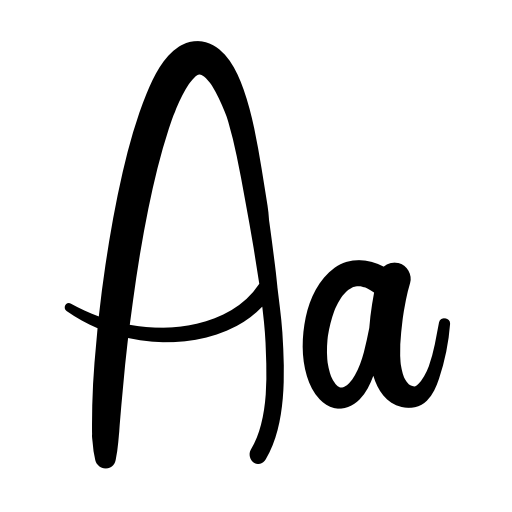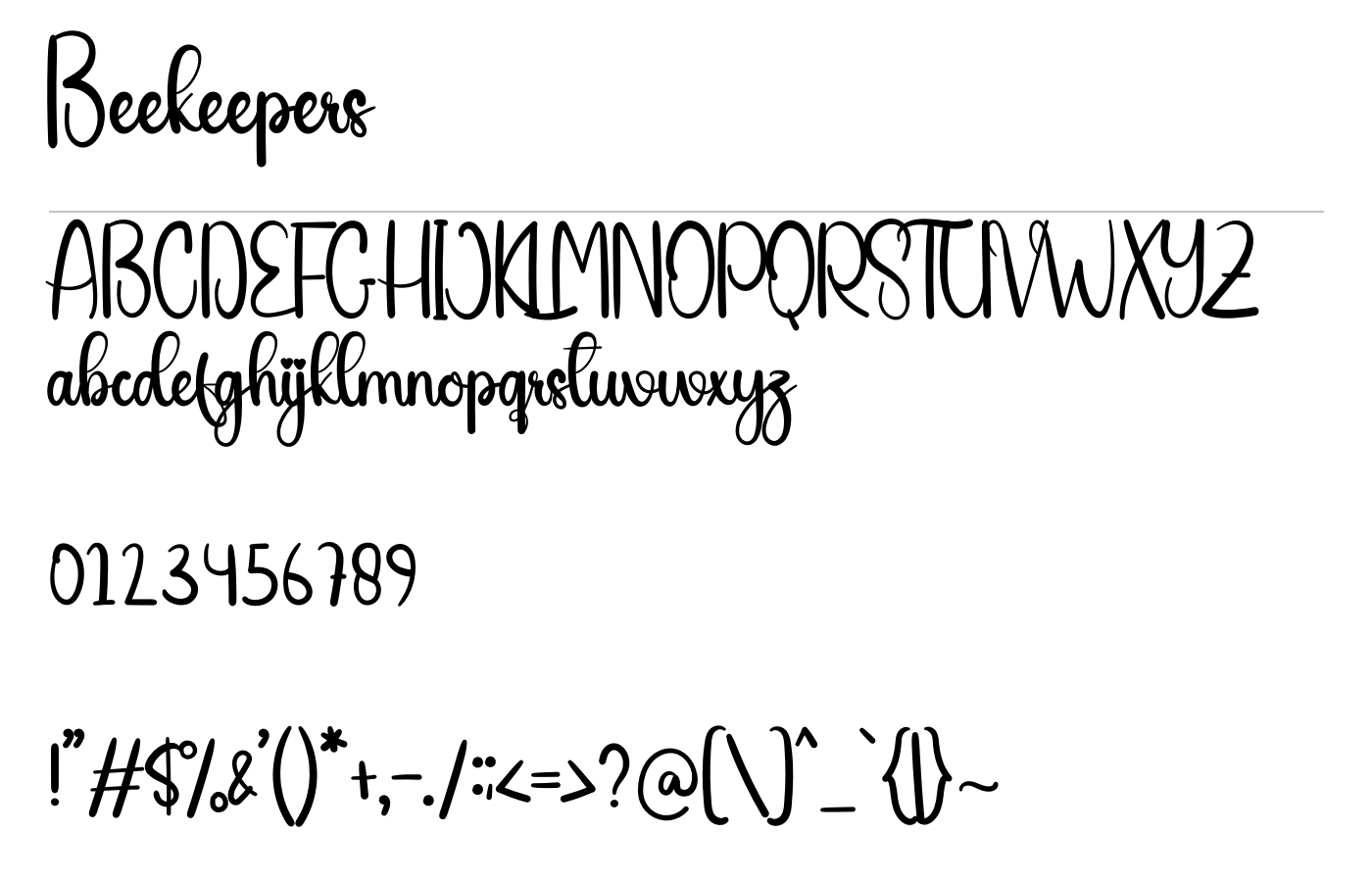
Beekeepers is a playful and charming handwritten script font with tall, narrow letterforms and a consistent light weight. Its casual yet refined style, featuring unique loops and swashes, makes it perfect for creative branding, invitations, and informal headlines that seek a friendly and approachable feel. This font works well in designs that want to convey warmth, creativity, and a personal touch.
Beekeepers Font
About Beekeepers Font